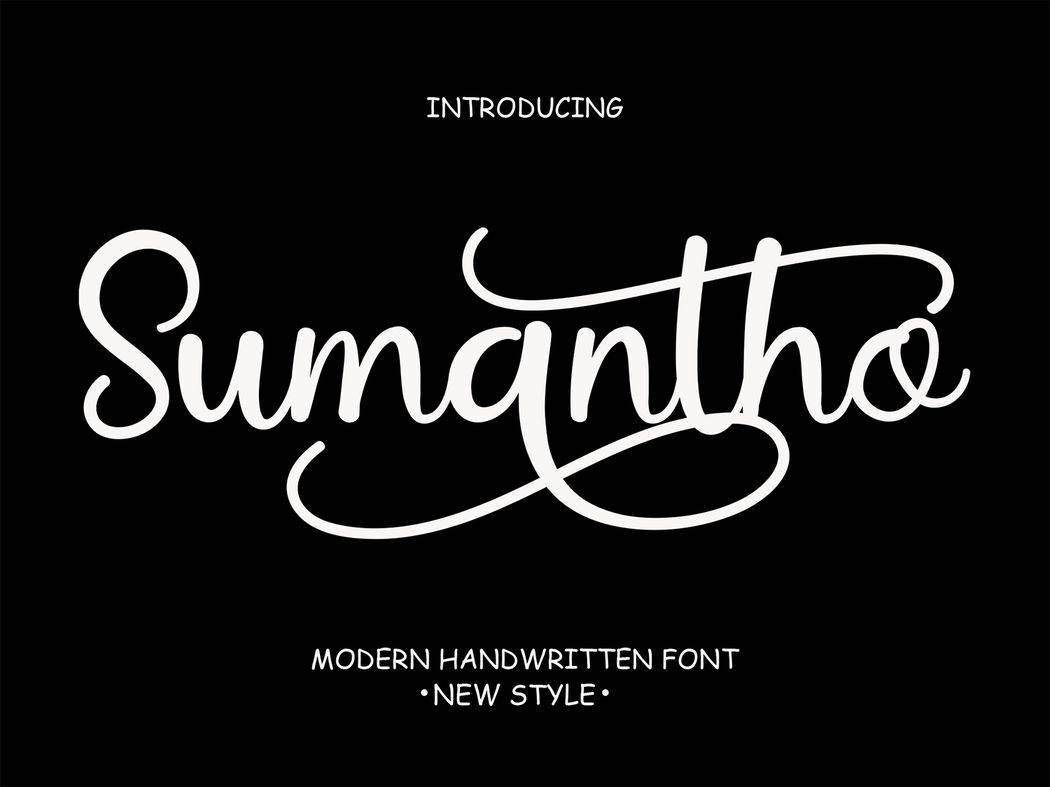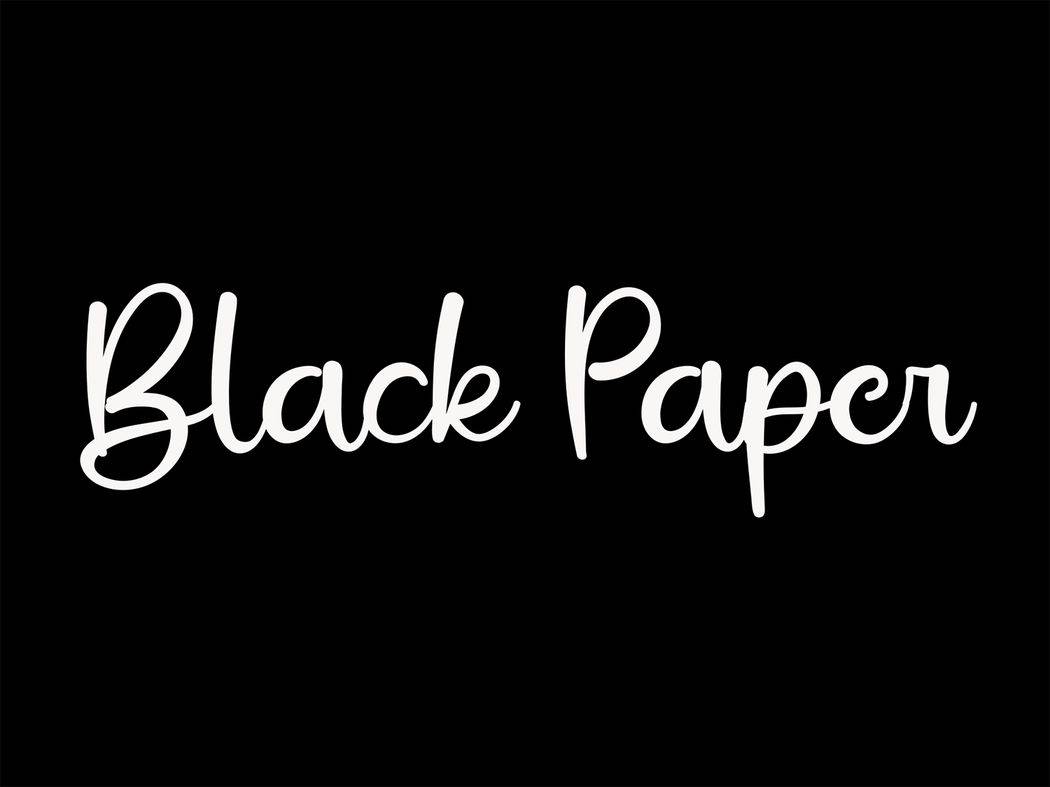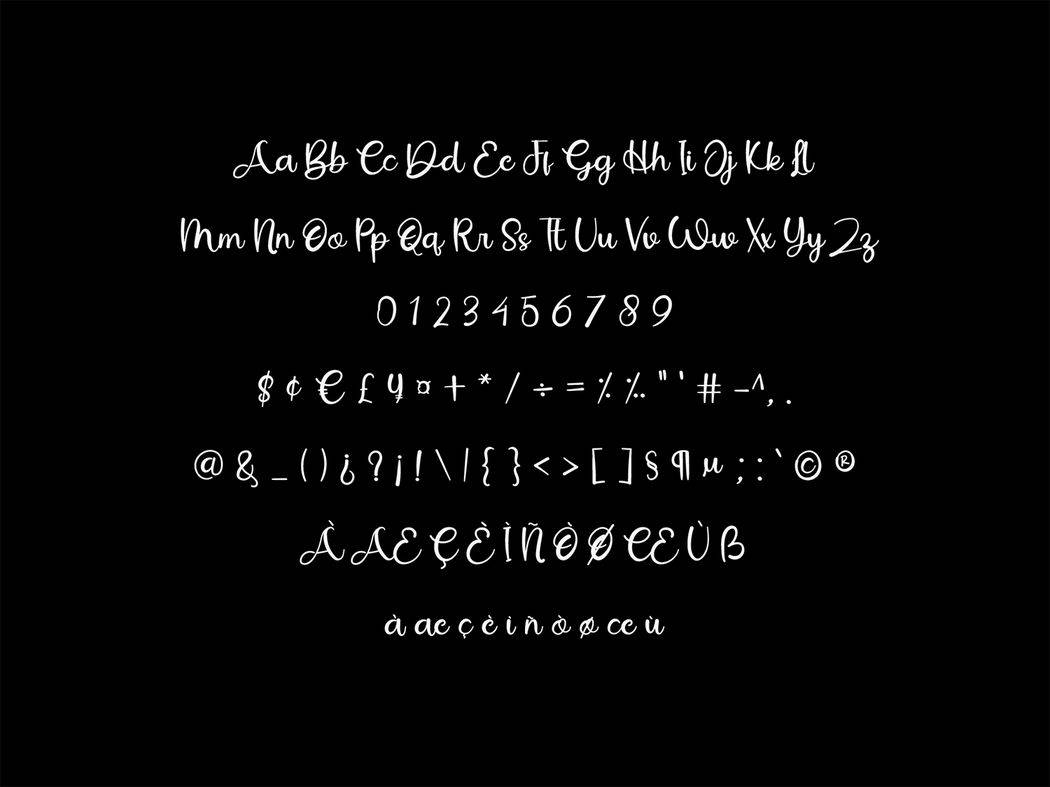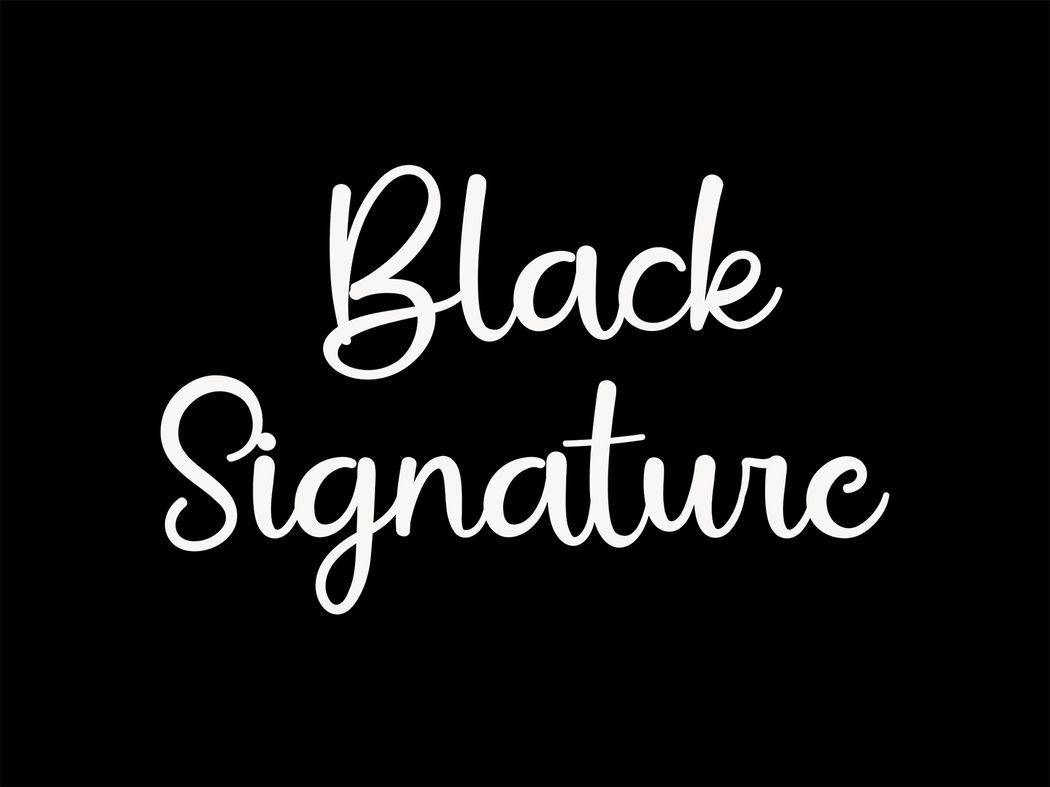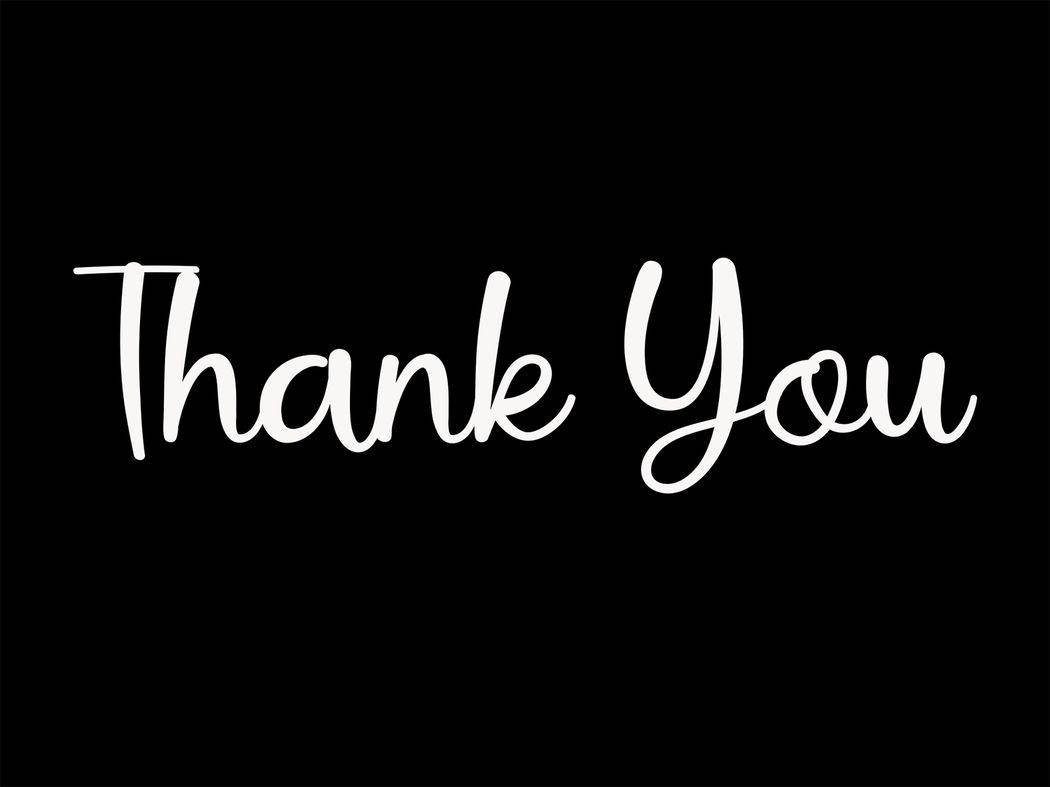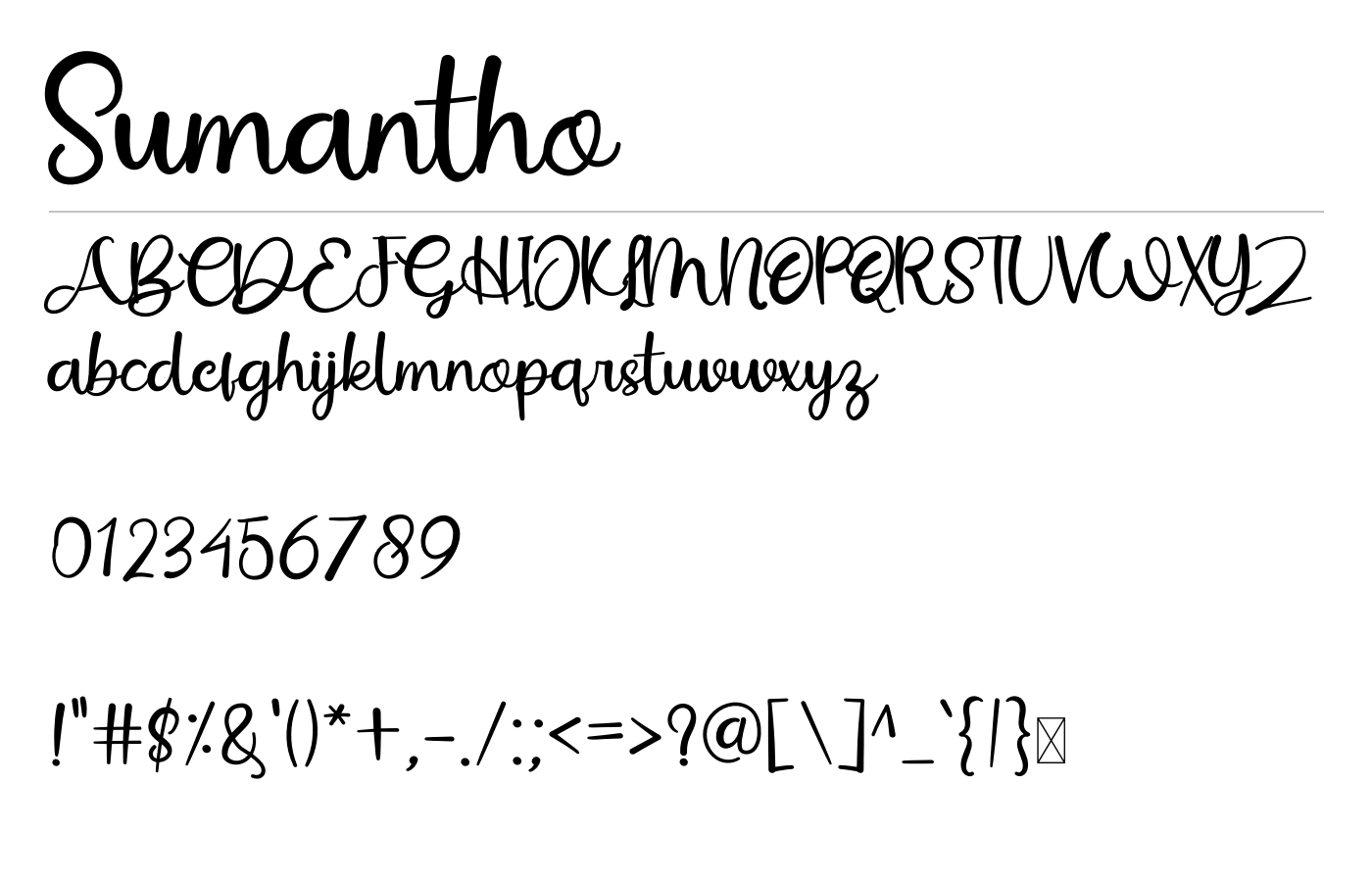
Sumantho is a playful, handwritten script font featuring smooth, rounded strokes with a casual, friendly vibe. Its lively uppercase letters and neat lowercase forms make it perfect for invitations, greeting cards, branding, and creative projects that seek a warm and approachable feel. This font shines in designs where a personal, informal touch is desired, combining charm with clear readability.
Sumantho Font
About Sumantho Font